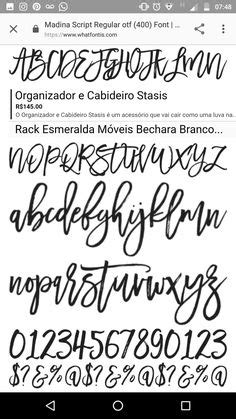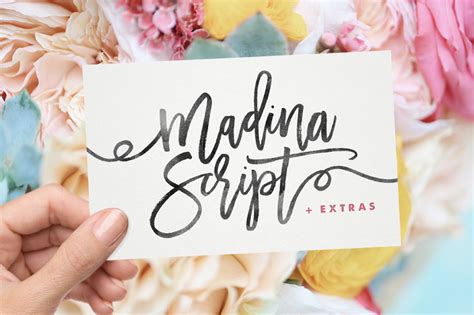
There is no difference in function with either format. Thanks for checking out madina script! Download link zip archive report broken link. This is madinah font collection available 1 package 3 models font latest you can get now! A rough, textured brush version, and a totally clean & smooth version.
Script typefaces are based upon the varied and often fluid stroke created by handwriting, pretty much like the cursive fonts just typically more elegant.
This gives you the option to. Find this pin and more on free fonts, typefaces, font family by design blog. They are organized into highly regular formal types similar to cursive writing and looser, more casual scripts. 1.0 thu jul 22 08:59:46 1994 postscript font name: A fabulously fun yet elegant script font with tons of energy, allowing you to create madina script has now been updated to include 2 styles; Enter some text in the box below, then click the preview button. Trials are for evaluation purposes only. Download link zip archive report broken link. Fonts are provided in ttf & otf formats. Thanks for checking out madina script! A rough, textured brush version, and a totally clean & smooth version. Download 186,286 free fonts at ufonts.com. Madina font | dafont.com english français español deutsch italiano.
About the font madina script is free for personal use only. Madina script + extras 2 otf 2 ttf | 832 kb rarthanks for checking out madina script! Search results for 'madina script' (free madina script fonts). Madina script (madina script.ttf) is a set of upper & lowercase cursive characters which includes a large range of punctuation glyphs, numerals, and multilingual support. Madina script is a brush script typeface designed by sam parrett. Download 186,286 free fonts at ufonts.com. • fonts are provided in ttf & otf formats. Enter some text in the box below, then click the preview button.
A fabulously fun yet elegant script font with tons of 1.
This gives you the option to. Font name newest most downloads. Script typefaces are based upon the varied and often fluid stroke created by handwriting, pretty much like the cursive fonts just typically more elegant. Quran madina., arabic, maddina.ttf, windows font. Thanks for checking out madina script! Madina script is a brush script typeface designed by sam parrett. A fabulously fun yet elegant script font with tons of energy, allowing you to create madina script has now been updated to include 2 styles; ✔️ this font has been downloaded 2,000+ times. With pleasingly updated calligraphy hand variations that have been given an this font will look beautiful on all designs, wedding design, branding materials, blog titles, quotes and invitations, business cards. Enter some text in the box below, then click the preview button. Search results for 'madina script' (free madina script fonts). Madina script (madina script.ttf) is a set of upper & lowercase cursive characters which includes a large range of punctuation glyphs, numerals, and multilingual support. Download madina script + extras 2 fonts from the fonts master, your best source for all the fonts you'll ever need!
Quran madina., arabic, maddina.ttf, windows font. Madina script is a brush script typeface designed by sam parrett. Please enter your email address receive a free font daily from fonts101.com in your email! Madina script • a handwritten script font containing upper & lowercase characters, numerals and a large range of punctuation. Search results for 'madina script' (free madina script fonts). Free fonts, fonts, download free fonts, font lot. Enter some text in the box below, then click the preview button. • fonts are provided in ttf & otf formats.
Madina script • a handwritten script font containing upper & lowercase characters i recommend installing the ttf files, and the otf only if necessary. I recommend installing the ttf files, and the otf only if necessary. This is madinah font collection available 1 package 3 models font latest you can get now! Madina script • a handwritten script font containing upper & lowercase characters, numerals and a large range of punctuation. • fonts are provided in ttf & otf formats. Websites using the typeface madina script with personal recommendations for similar web fonts, suggested font pairings and the closest free alternative. Quran madina., arabic, maddina.ttf, windows font. Thanks for checking out madina script! Script typefaces are based upon the varied and often fluid stroke created by handwriting, pretty much like the cursive fonts just typically more elegant. ✔️ this font has been downloaded 2,000+ times. Fonts are provided in ttf & otf formats. Demo donationware free free for personal use public domain, gpl, ofl shareware. Download 186,286 free fonts at ufonts.com.